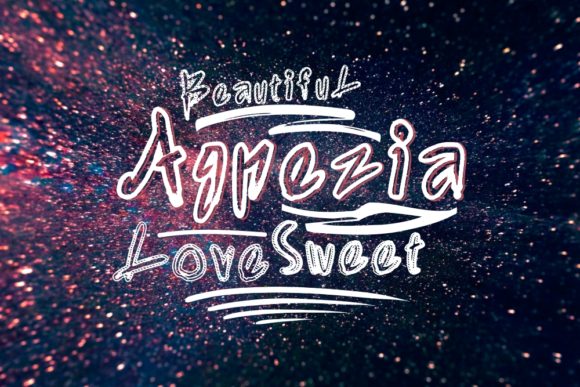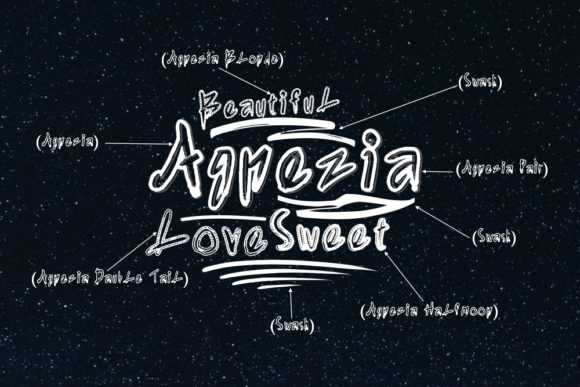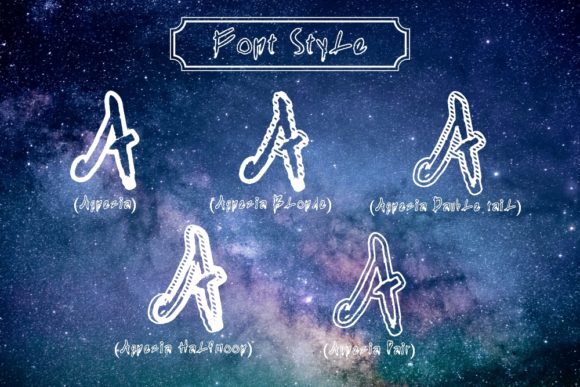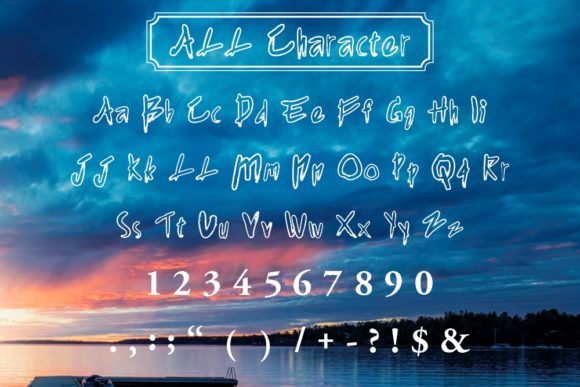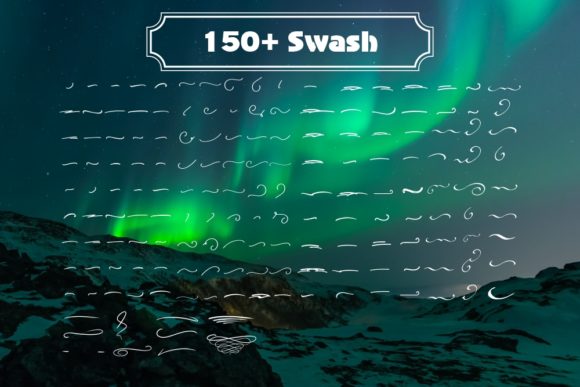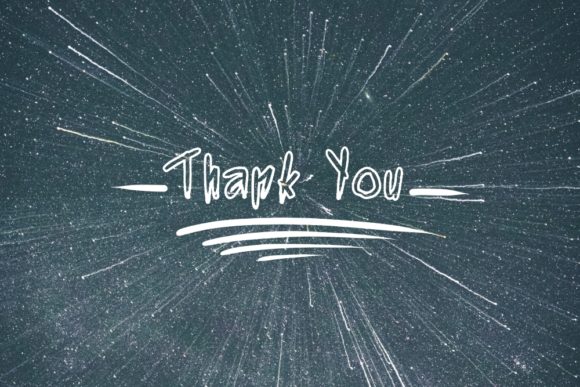
Agnezia Font
About Agnezia Font
Agnezia is a unique and beautiful handwritten font. Fall in love with its incredibly distinct and timeless style and use it to create spectacular designs!